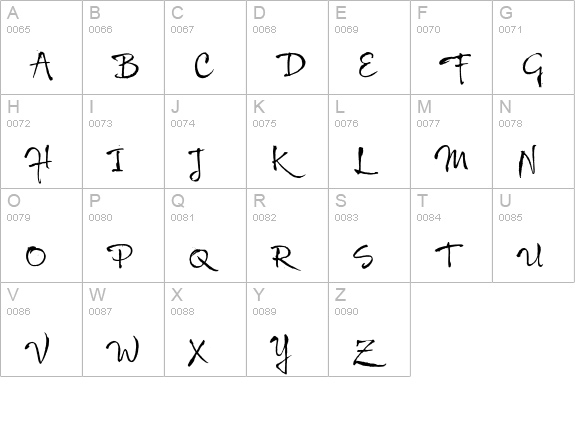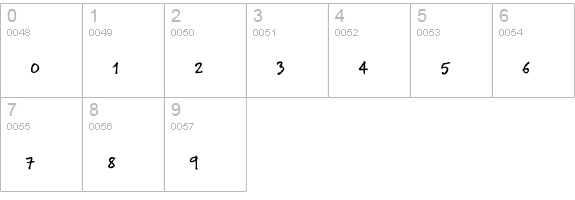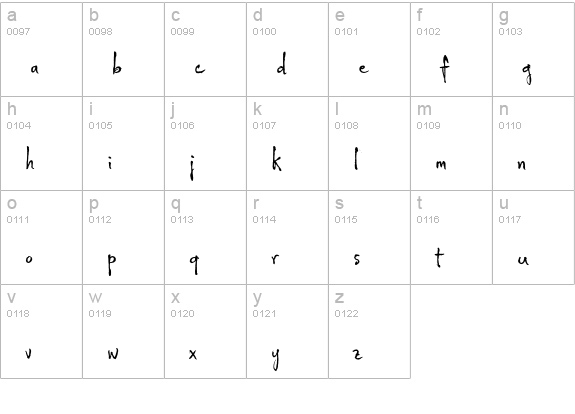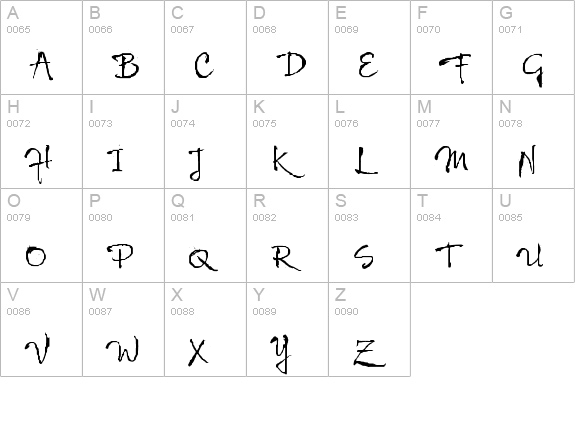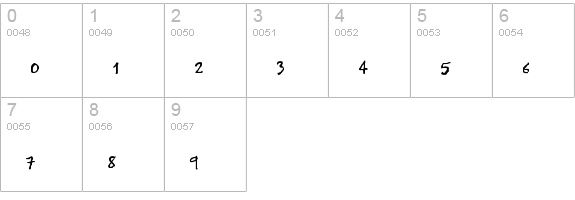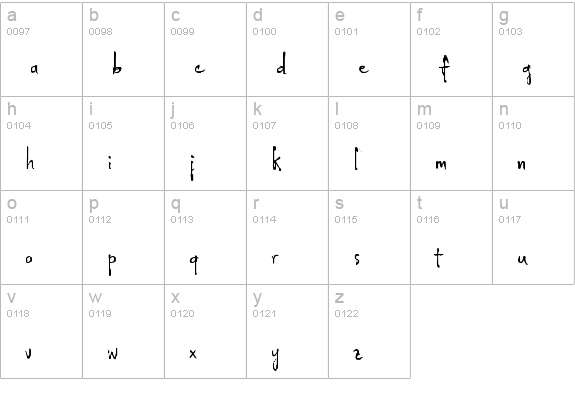
Wild Pen 2 Font Details
Wild Pen 2 font is a beautifully crafted and unique typeface that exudes a sense of creativity and playfulness. With its hand-drawn appearance and irregular strokes, this font captures the essence of spontaneity and free-spiritedness. Each letter is carefully designed to evoke a sense of whimsy and individuality, making it perfect for projects that require a touch of charm and character. What sets Wild Pen 2 font apart is its versatility - it can be used for a wide range of design projects, from greeting cards and invitations to branding and packaging. Whether you're looking to add a personal touch to your designs or create a captivating headline, this font is sure to make a statement. The best part? Wild Pen 2 font is available for free download at FontsMarket.com, allowing you to unleash your creativity without breaking the bank. So go ahead, give your designs a playful and spirited twist with Wild Pen 2 font today!